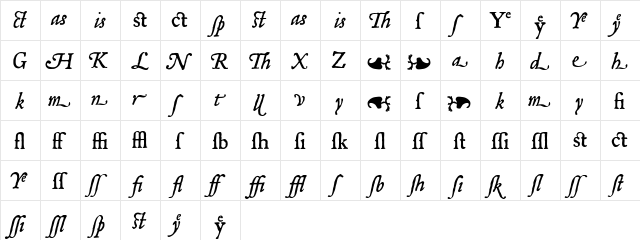
Mayflower Xtras Regular
Design Context for Mayflower Xtras Typeface
Mayflower Xtras is a composed and adaptable typeface that performs quietly and consistently across a wide range of design contexts.